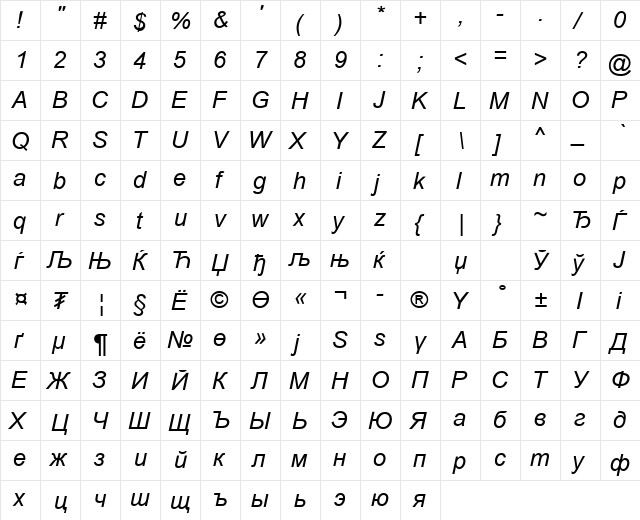
Arial Mon Italic
Design Context for Arial Mon Typeface
Arial Mon takes a measured approach to typography — its balanced proportions and neutral character make it a reliable workhorse for both digital and print work. Its italic angle brings a sense of urgency and motion to the letterforms.
Pro Tip: Try Arial Mon for annotation and caption copy alongside an upright companion — the contrast in angle creates a dynamic but ordered typographic system.